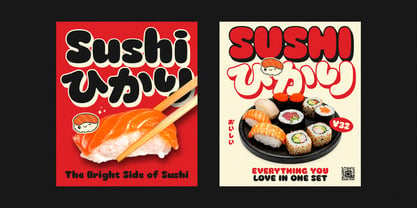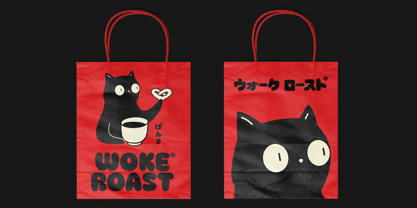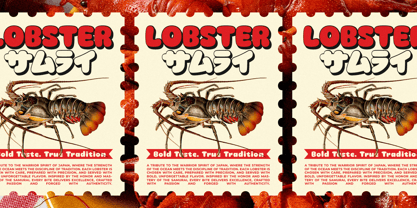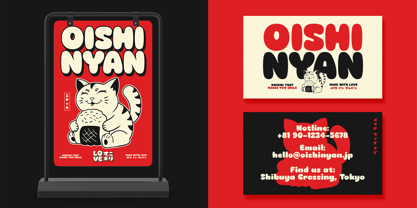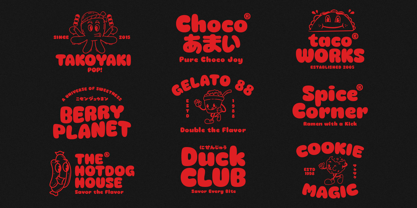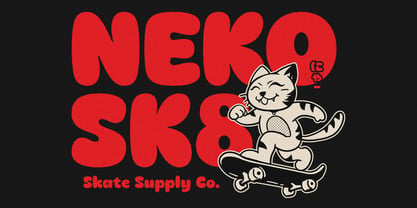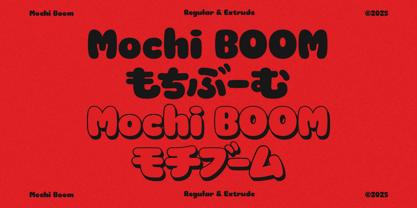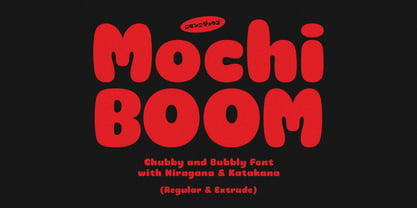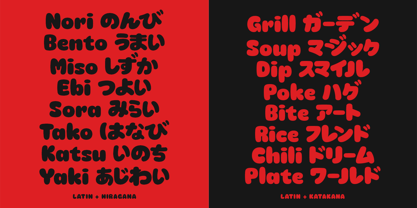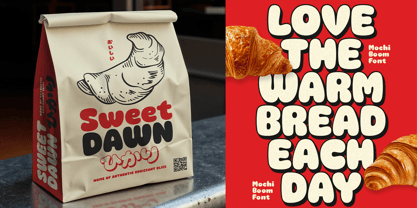
Mochi Boom
by Prioritype
The Mochi Boom Font Family was designed by and published by Prioritype. Mochi Boom contains 2 styles and family package options. More about this family
Mochi Boom - Playful Bubbly Font
Mochi Boom is a playful display font with soft rounded shapes that instantly catch the eye. Inspired by the chewy charm of mochi, this font is perfect for food brands, packaging, posters, or any design that needs a fun and friendly touch.
It supports both Latin letters and Japanese Hiragana and Katakana without youon so you can easily create unique and eye-catching typography that stands out. From logos to social media graphics, Mochi Boom adds a sweet and joyful vibe to every project.
Bring your designs to life with Mochi Boom and let every word look as delightful as its name.